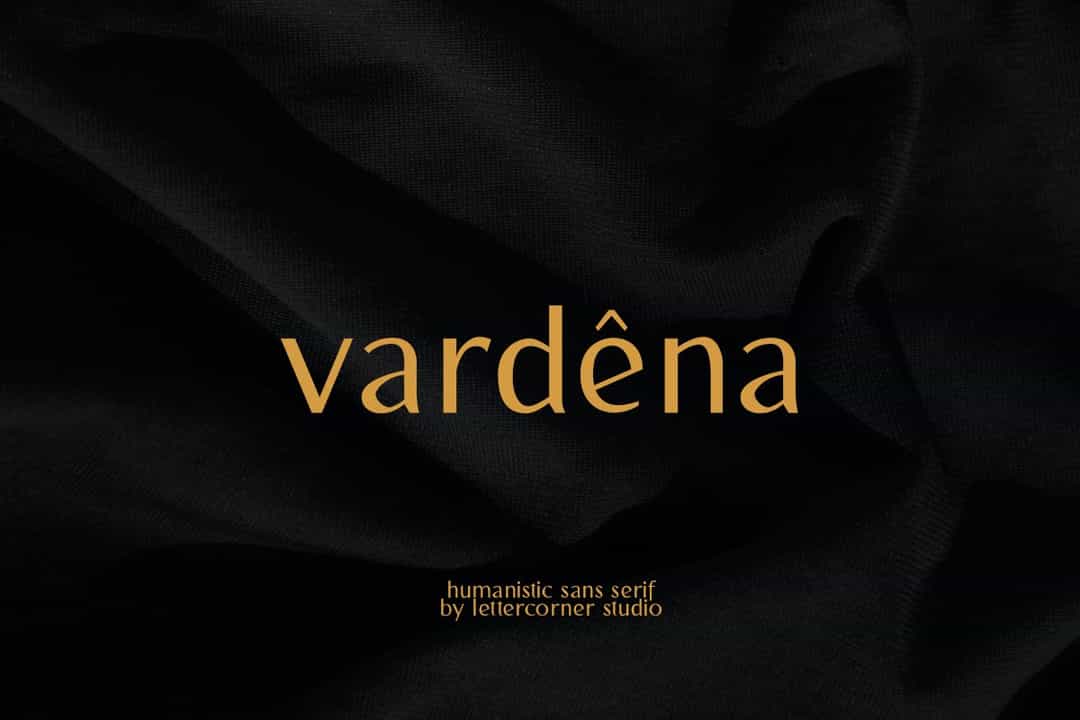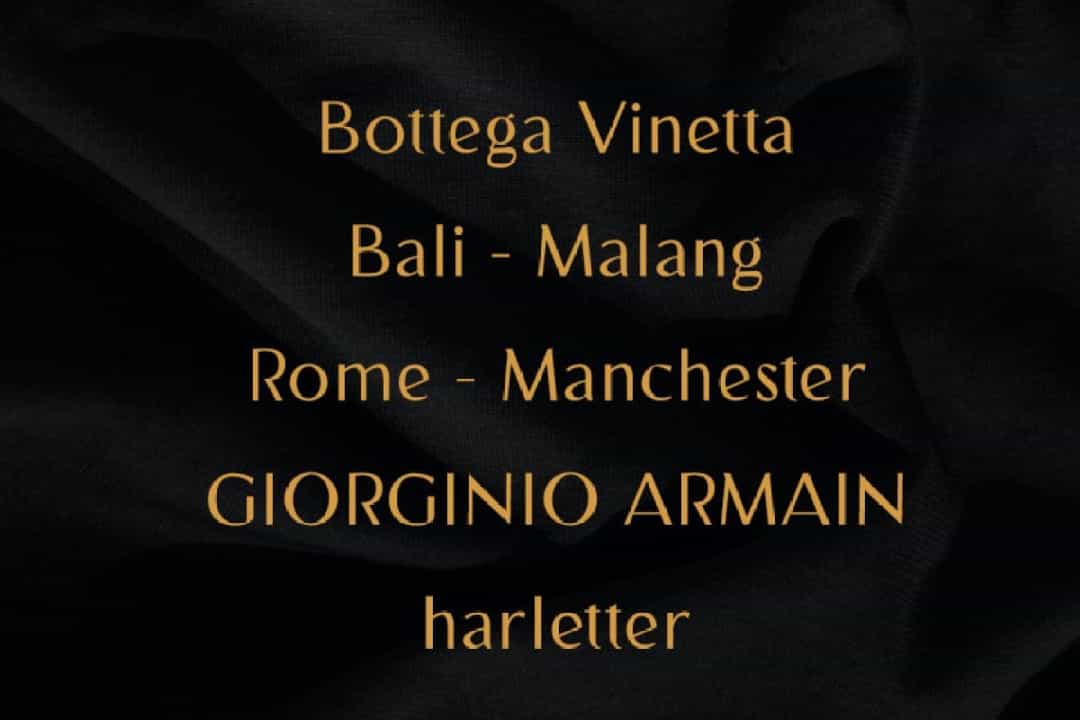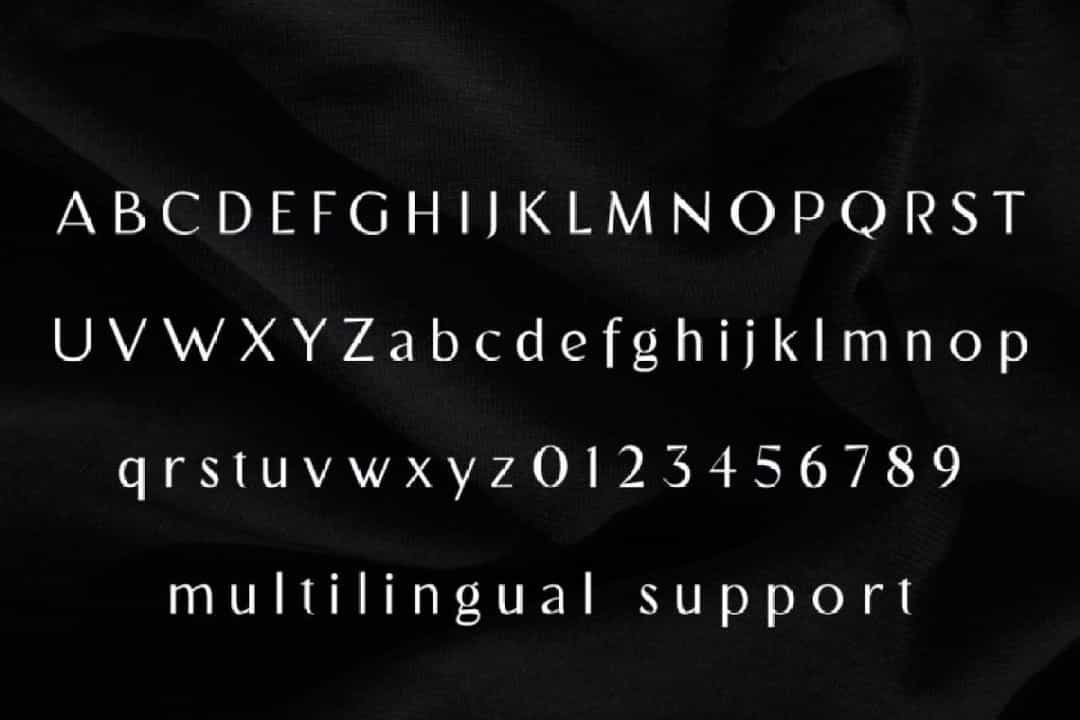
Verdena is an elegant semi-geometric sans-serif font with an old-fashioned humanist touch and sophisticated styling, specifically designed to help create clean, simple humanist projects such as packaging designs, logos and social media profiles. Ideal for creating elegant retro-style designs this font makes for quick and effortless retro designs!